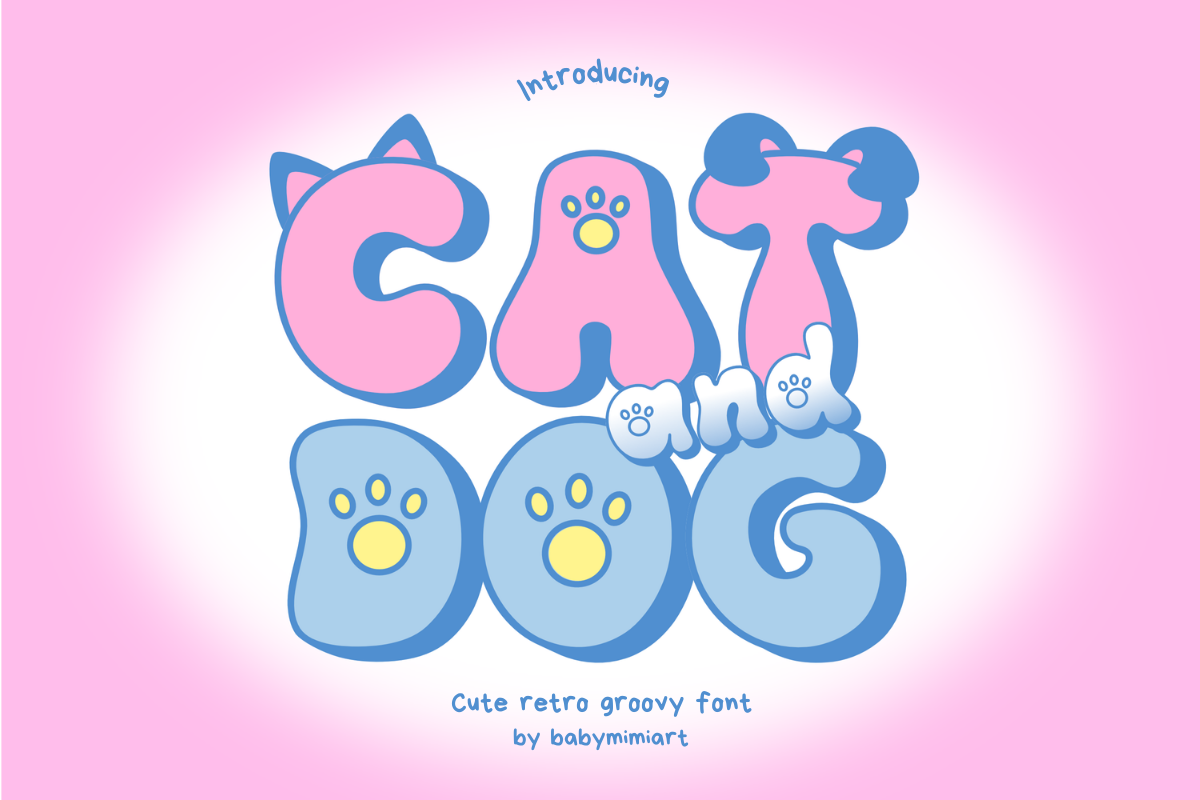
Cat and Dog Retro Groovy Font
Cat and Dog is a cute retro groovy font with a playful and sweet touch. Its adorable paw gimmick makes it perfect for any project, especially those related to cat or dog designs. Whether you're designing party invitations, flyers, or social media graphics, let this font bring a delightful and endearing feel to your creations, infusing them with joy and whimsy.